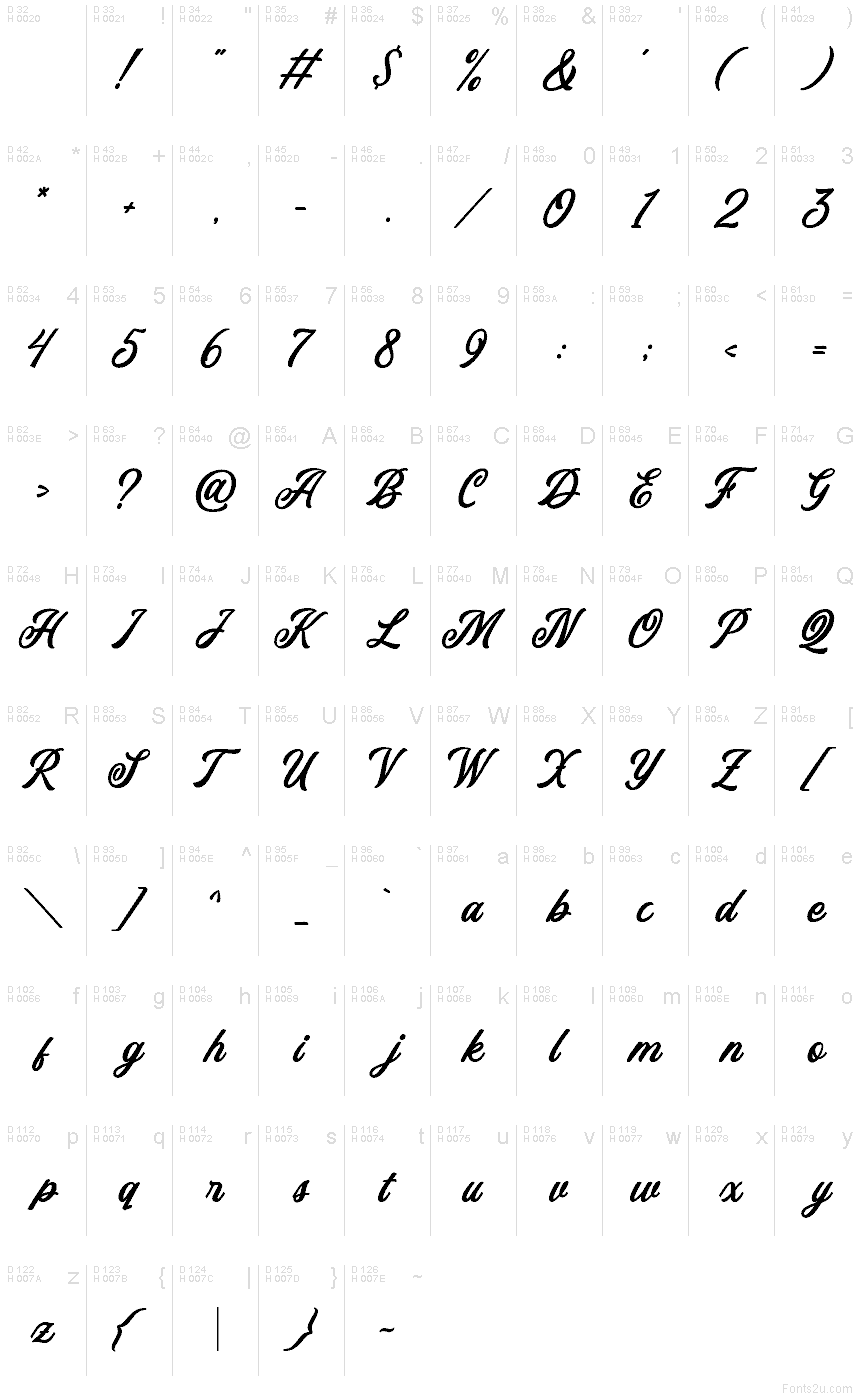
The Morydane Regular
The Morydane font by Letterhend Studio is an elegant calligraphy font that combines effortlessly flowing letters with a vintage-inspired script style. Sophisticated yet expressive, the typeface finds its voice in every word of your text. Slightly cursive in appearance, it executes sophisticated lettering effects with hand-written brush strokes and no extra effort.
The usage options for this freely-available font extend from book covers, logos, branding projects, and posters to invitations to events where impressions matter like weddings and engagements. The typeface would look just as stunning on T-shirt designs as it would on signage, business cards or social media content. Use The Morydane wherever attention-grabbing typography is required!